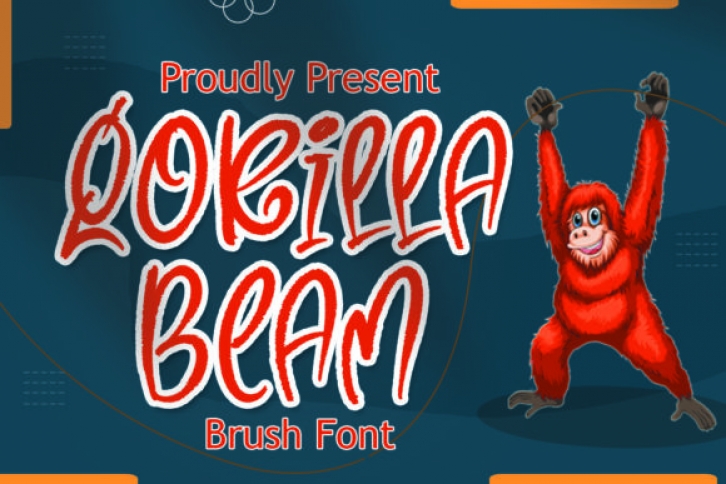
Gorilla Beam is a cool, relaxed and friendly brushed display font. Whether you use it for cartoon related designs, children games or just any creation that requires a lovely touch, this font will be an amazing choice.